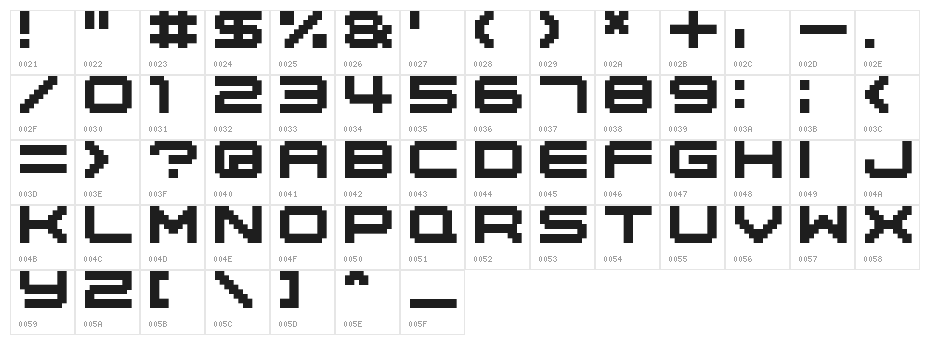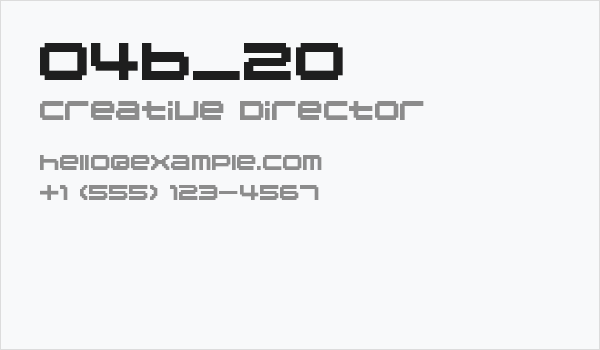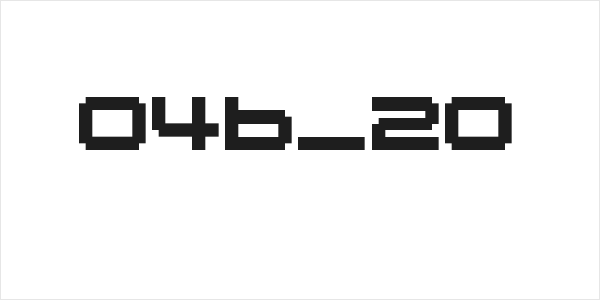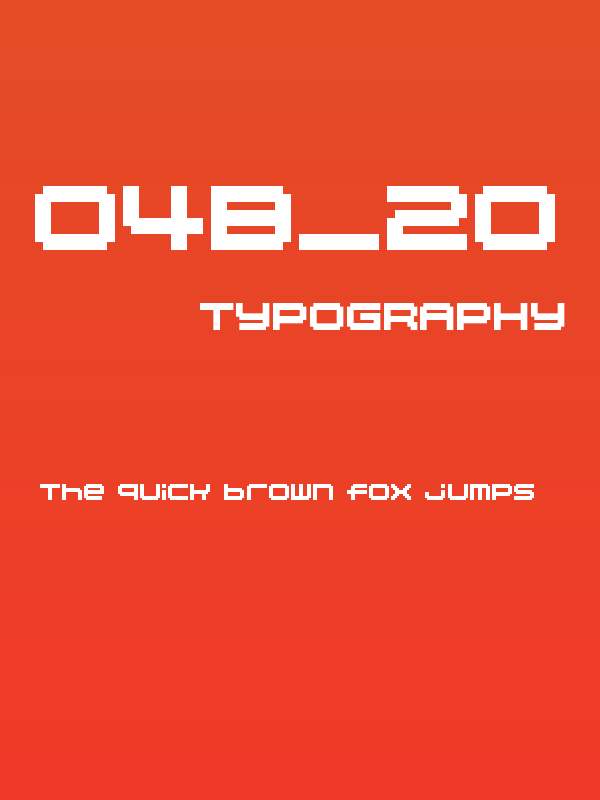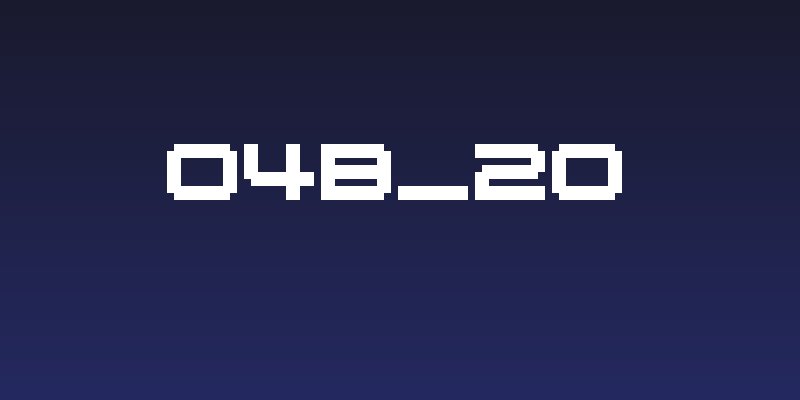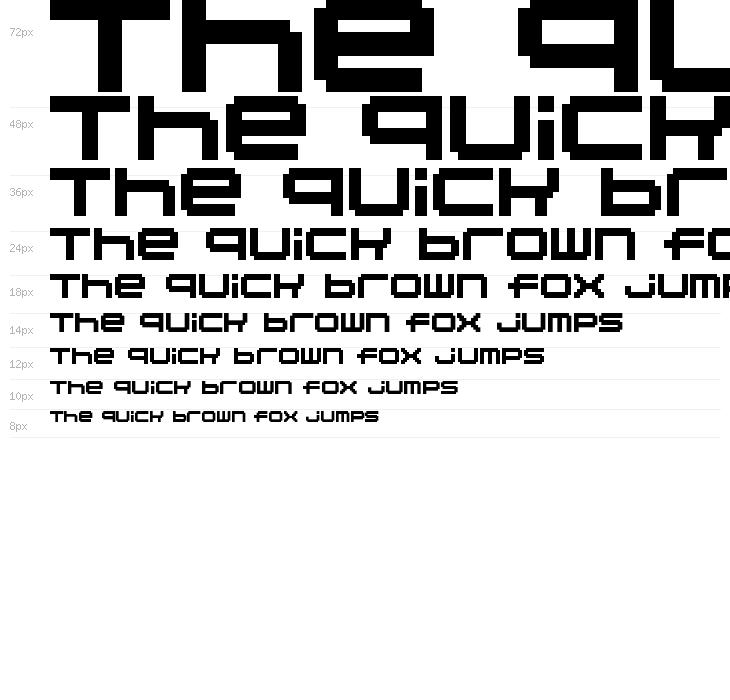
04b_20 Font
04b_20 Description
This font features a distinct pixelated style, reminiscent of early digital and arcade aesthetics. Each character is constructed with a blocky, grid-like appearance, giving it a retro, tech-inspired look. The uppercase and lowercase letters maintain a consistent height, contributing to a uniform and cohesive design. The numerals and special characters follow the same pixelated pattern, ensuring visual harmony across all glyphs. This font's geometric simplicity and nostalgic feel make it ideal for projects that aim to evoke a sense of vintage digital technology.
Overall StyleVintage
Proposed ProjectsIdeal for retro video games, digital art projects, tech-themed posters, and nostalgic branding.